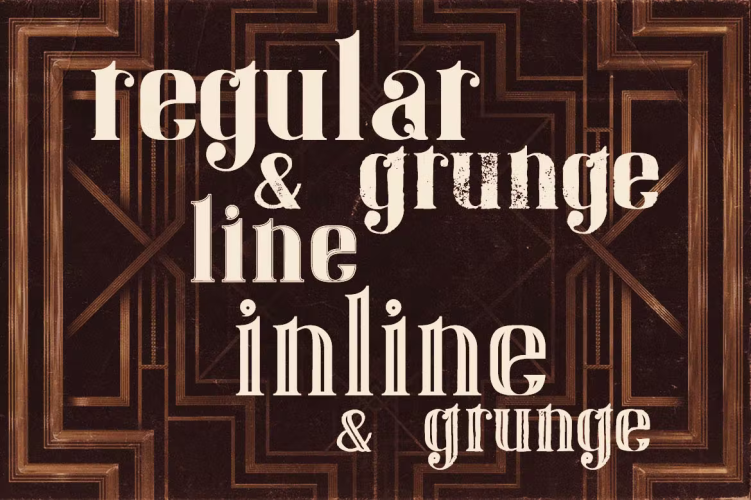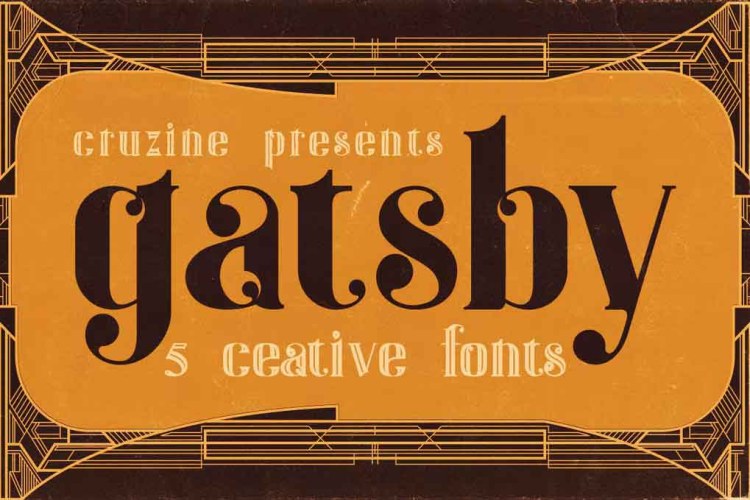
Gatsby ArtDeco Font
ArtDeco vintage style display or serif font for your new projects. Great for modern but also for retro/vintage projects! – 5 font files (otf & ttf) – regular & grunge, i…
ArtDeco vintage style display or serif font for your new projects. Great for modern but also for retro/vintage projects!
Reports, white papers and book interiors hold the eye longer when the text face has real serifs; Gatsby ArtDeco Font keeps that rhythm without looking old-fashioned.
Food, spirits and cosmetics brands lean on serif wordmarks to suggest age and care. Gatsby ArtDeco Font gives that signal at wordmark size.
Set Gatsby ArtDeco Font for the body of an award or a diploma and keep the recipient name in a script; the pairing is what makes a document feel official.
It sits in the Serif Fonts group and reads as display, modern, retro, serif. That makes it a candidate wherever those qualities help: headings, packaging, social graphics and brand work. Set it at the size you plan to use before deciding.